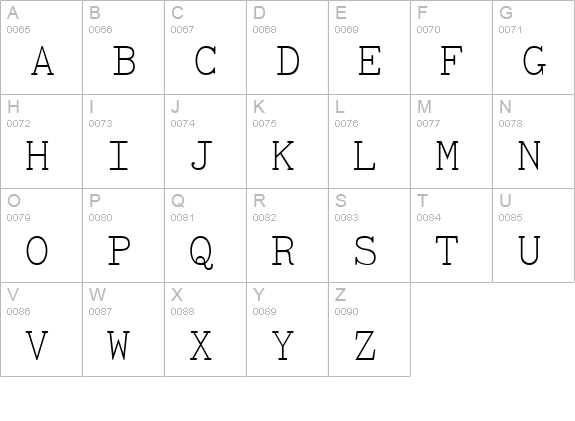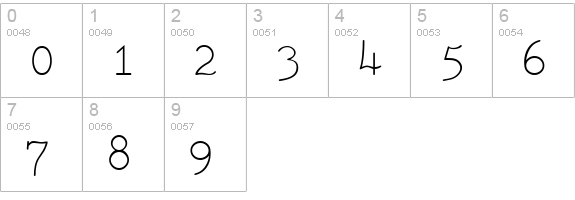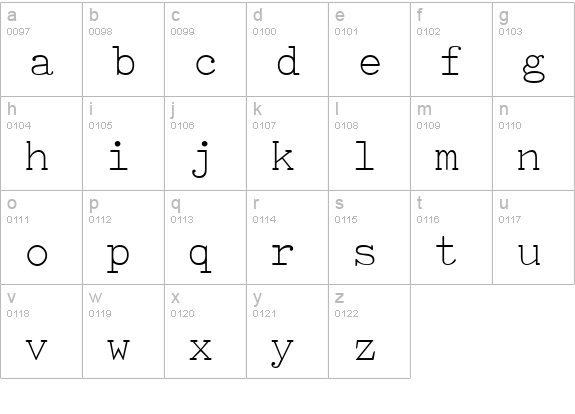
TiredOfCourierThin Font Details
Introducing TiredOfCourierThin, a font that will revolutionize the way you perceive typography. Are you tired of the same old boring courier fonts that lack personality and flair? Look no further, because TiredOfCourierThin is here to save the day! This font is the perfect blend of elegance and simplicity, with a touch of modernity that sets it apart from the rest. Its sleek and thin strokes exude a sense of sophistication, making it ideal for a wide range of design projects. TiredOfCourierThin is not just any ordinary font, it is an extraordinary creation that will elevate your designs to new heights. Whether you're working on a logo, branding materials, or even a website, this font will add a touch of professionalism and class. And the best part? TiredOfCourierThin is absolutely free! That's right, you can download this incredible font at no cost from FontsMarket.com. We believe that great design should be accessible to all, and that's why we're offering this font for free. So why wait? Don't settle for mediocrity, unleash your creativity with TiredOfCourierThin. Download it today and experience the power of exceptional typography. Your designs will thank you!